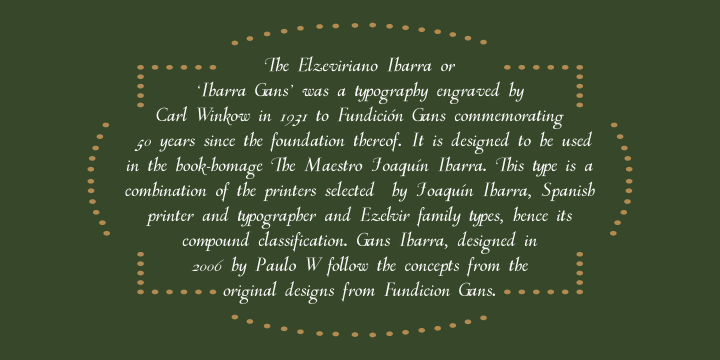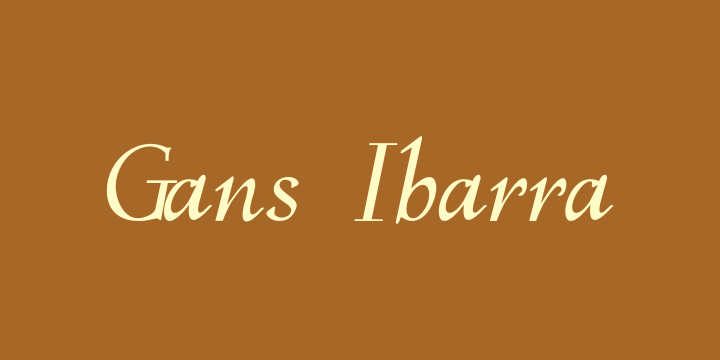
Gans Ibarra
Designed by Paulo W, Gans Ibarra is a display serif font family. This typeface has four styles and was published by Intellecta Design.
The Elzeviriano Ibarra or ‘Ibarra Gans’ was a typography engraved by Carl Winkow in 1931 to Fundición Gans commemorating 50 years since the foundation thereof. It is designed to be used in the book-homage
The Maestro Joaquín Ibarra
. This type is a combination of the printers selected by Joaquín Ibarra, Spanish printer and typographer and Ezelvir family types, hence its compound classification.
Gans Ibarra, designed by Paulo W follow the concepts from the original designs from Fundicion Gans.